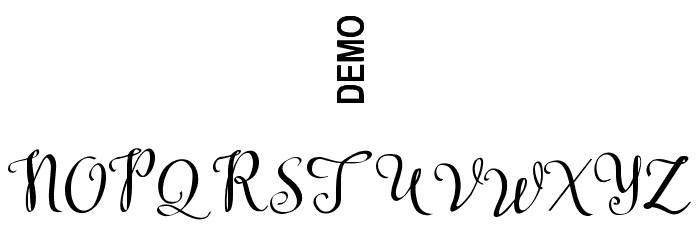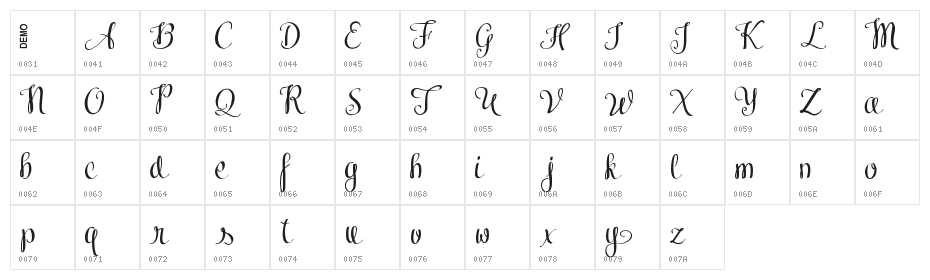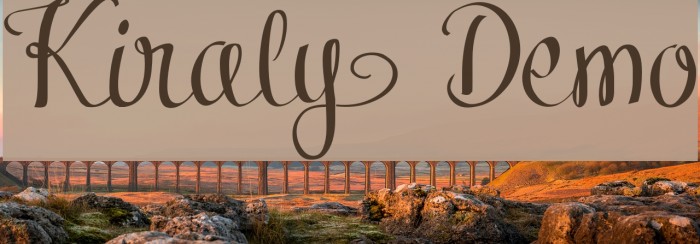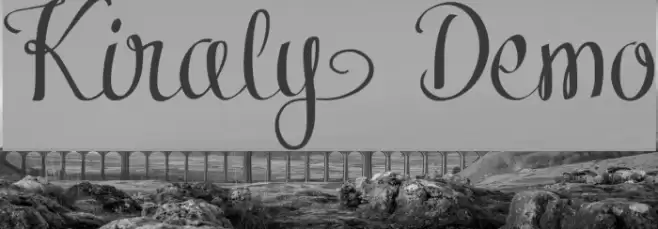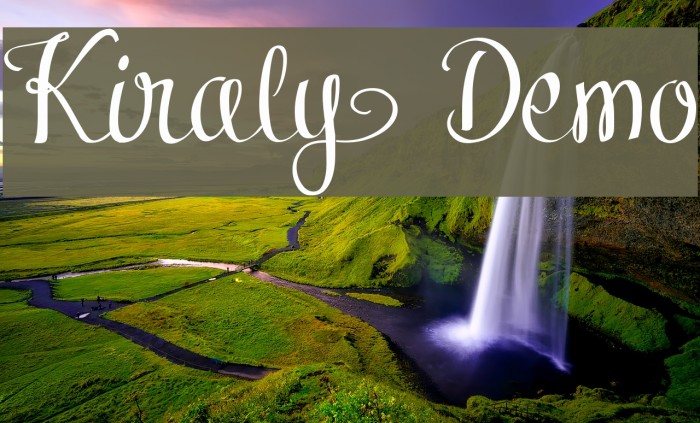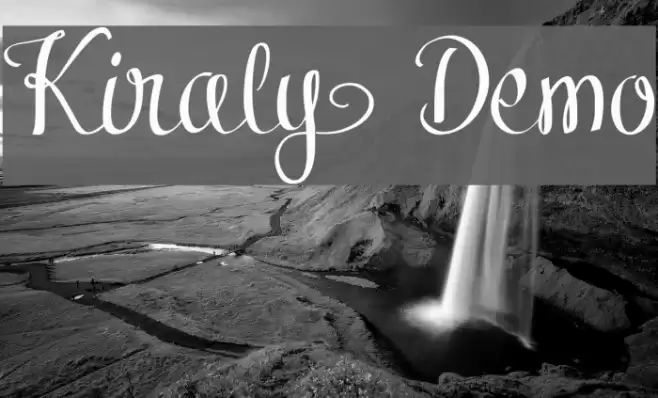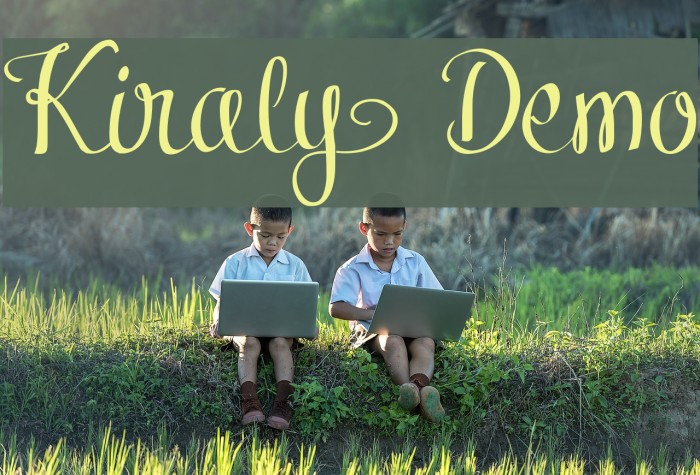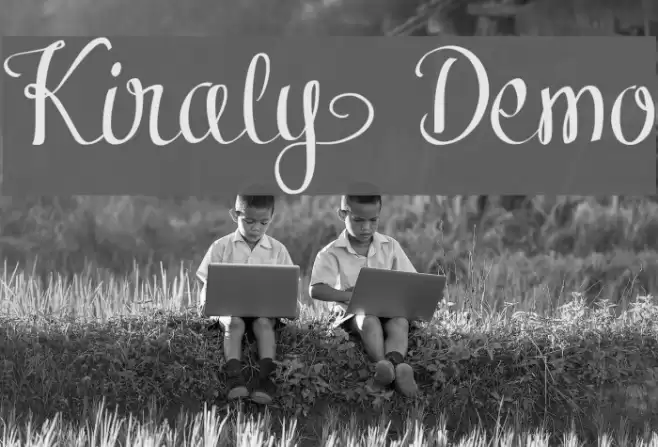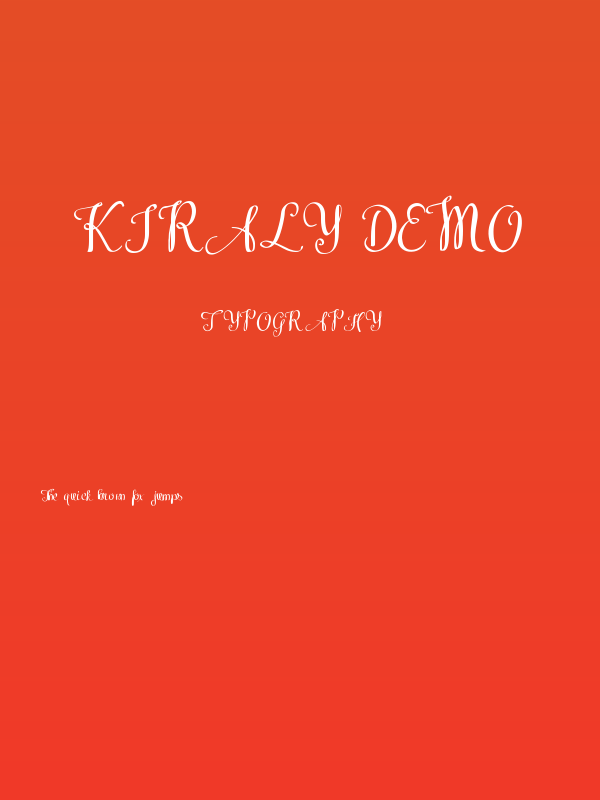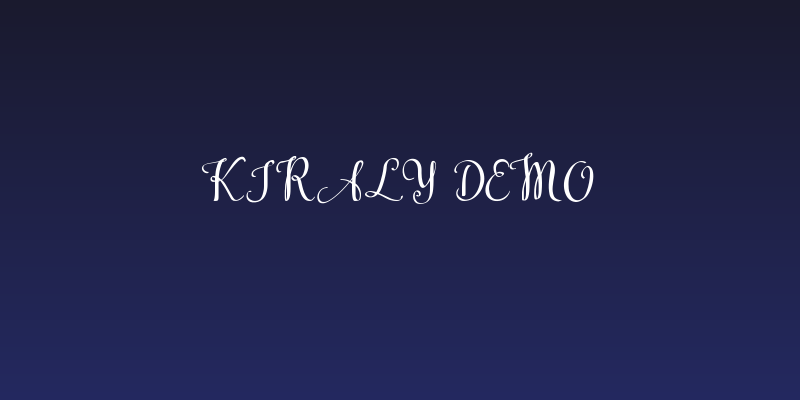
Kiraly Demo Font
This elegant script font features a flowing, cursive style with intricate loops and swashes that give it a sophisticated and decorative appearance. The uppercase letters are particularly ornate, with exaggerated flourishes that add a touch of drama and elegance. The lowercase letters maintain a consistent style, with smooth curves and a graceful flow that make the text appear fluid and connected. The font's overall design is both artistic and legible, making it suitable for a variety of creative applications. The characters are well-balanced, with a medium contrast in stroke thickness, which enhances readability while maintaining its decorative charm.
Use CaseLogos, Invitations, Decorative text
Proposed ProjectsIdeal for wedding invitations, greeting cards, branding, and elegant logo designs.